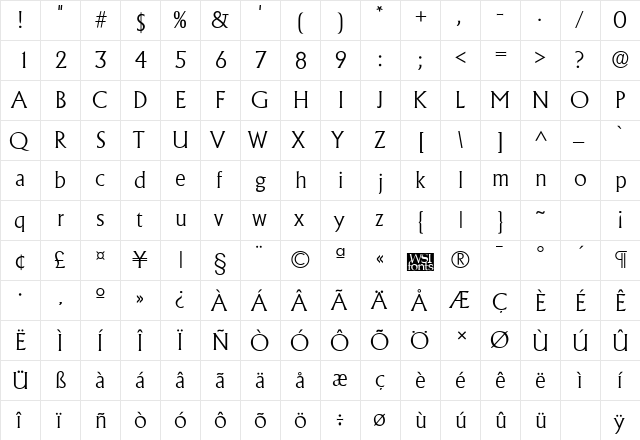
AlbertaExtralight Regular
Design Context for AlbertaExtralight Typeface
AlbertaExtralight offers clean, dependable letterforms without strong stylistic allegiance, making it a practical choice for designers who need flexibility. The delicate stroke weight brings airiness and refinement to layouts.